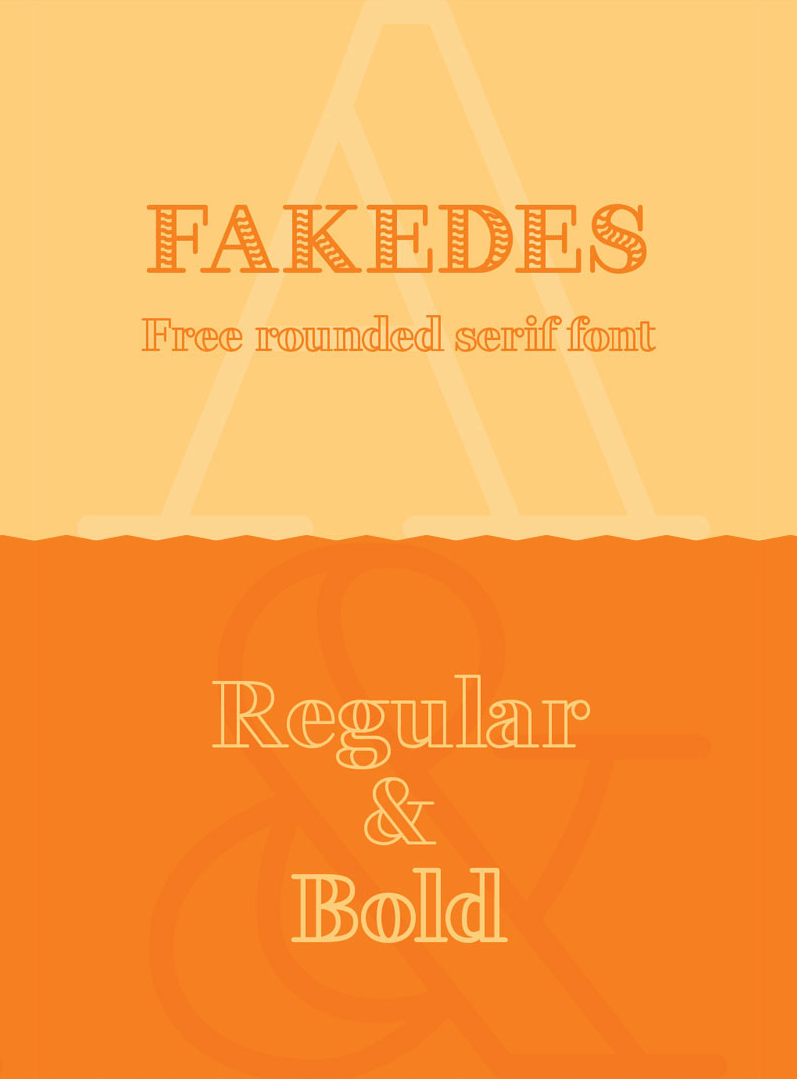
Today’s daily freebie comes from Cyril Mikhailov of the Russian Federation. Fakedes is a gorgeous rounded & outline serif font that happens to come in Russian as well.
As an accomplished type and calligraphy designer, Cyril’s creation is versatile and can be used for various purposes including headlines, posters, logos, menus and more! The free font can be downloaded from his Behance page after the jump!